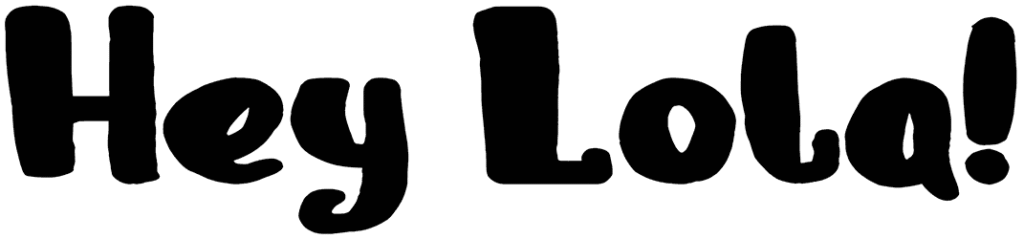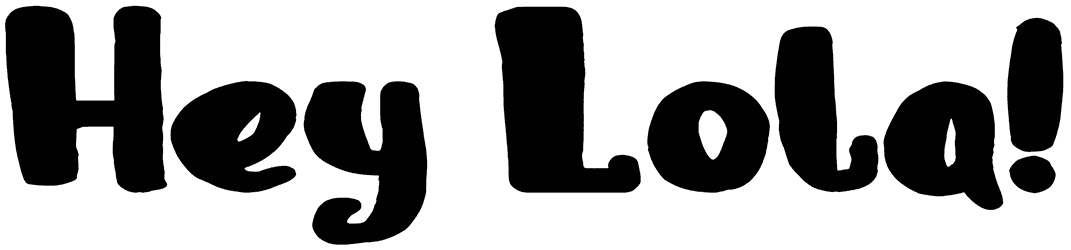
Hey Lola! Font
Meet Hey Lola!, a playful and modern font that has the potential to be used for many themes. This cartoon font has bold and cute letters, making it an eye-catching option. Test it for your present or future layouts and benefit from this unique style based on your taste.